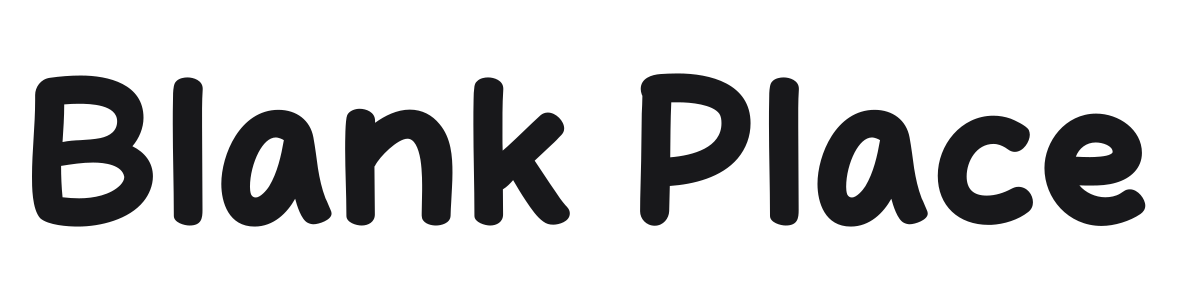
Blank Place
Blank Place is a bold rounded sans with soft, fully rounded terminals and a slightly irregular stroke rhythm that feels hand-drawn without being a script. The wide, sturdy forms read as immediately friendly and approachable at headline sizes. It suits branding, packaging, and any context that calls for warmth without going full handwritten.